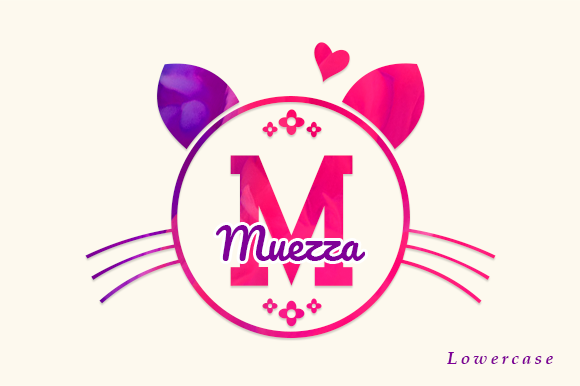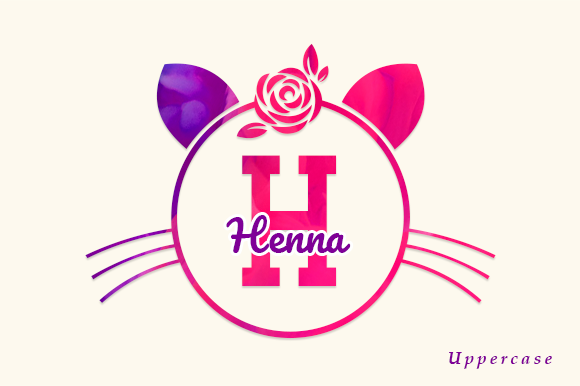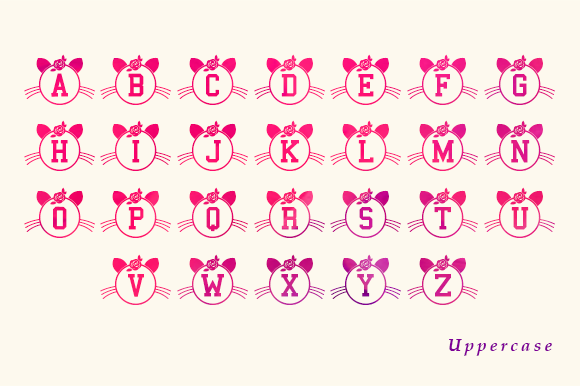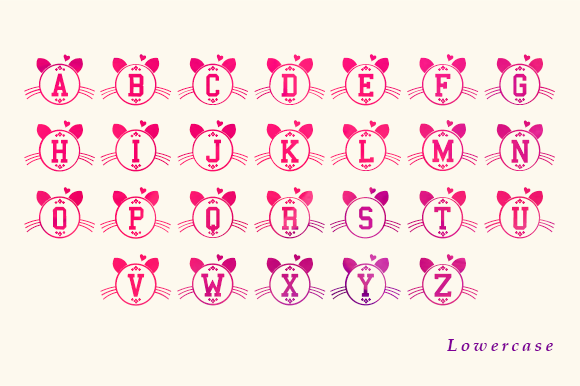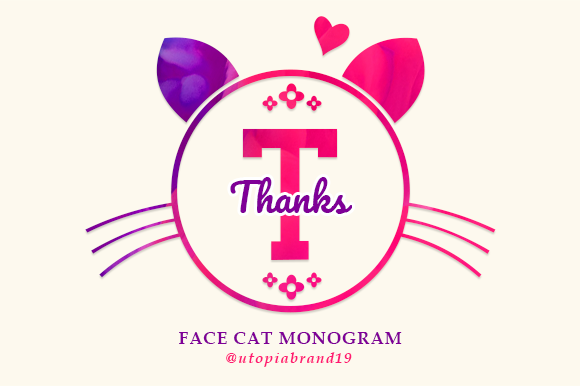
Introducing Face Cat Monogram Font: The Purrfect Addition to Your Design Collection
Are you a designer or crafter looking for a unique and elegant font to elevate your creative projects? Look no further than the Face Cat Monogram Font, a beautiful decorative font that features lovely cat-themed ornaments. With its authentic feel and charming design, this font is sure to capture the hearts of designers and crafters alike.
What is Face Cat Monogram Font?
Face Cat Monogram Font is a decorative font that boasts an elegant and sophisticated design, complete with adorable cat-themed ornaments. This font is perfect for creating stunning stationary art, eye-catching social media posts, and cute greeting cards that are sure to delight your audience. Whether you’re a professional designer or a crafty hobbyist, this font is sure to become a favorite in your collection.
Key Features of Face Cat Monogram Font
- Elegant Design: Face Cat Monogram Font features a beautiful, elegant design that is sure to add a touch of sophistication to your creative projects.
- Cat-Themed Ornaments: The font includes a range of adorable cat-themed ornaments, including cute cat faces, paws, and other feline-inspired designs.
- Authentic Feel: The font has an authentic feel that is sure to transport your audience to a world of whimsy and wonder.
- Versatile: Face Cat Monogram Font is perfect for a wide range of creative projects, from stationary art to social media posts and greeting cards.
Uses for Face Cat Monogram Font
Face Cat Monogram Font is a versatile font that can be used for a wide range of creative projects, including:
- Stationary Art: Create beautiful stationary art, including cards, invitations, and gift tags, using Face Cat Monogram Font.
- Social Media Posts: Add a touch of elegance and whimsy to your social media posts with this stunning font.
- Greeting Cards: Create cute and charming greeting cards for special occasions, such as birthdays, holidays, and more.
- Crafting Projects: Use Face Cat Monogram Font to add a personal touch to your crafting projects, including scrapbooking, journaling, and more.
Why Choose Face Cat Monogram Font?
With so many fonts available, why choose Face Cat Monogram Font? Here are just a few reasons why this font stands out from the crowd:
- Unique Design: Face Cat Monogram Font features a unique and adorable design that is sure to capture the hearts of designers and crafters alike.
- Elegant and Whimsical: The font strikes the perfect balance between elegance and whimsy, making it perfect for a wide range of creative projects.
Tips for Using Face Cat Monogram Font
Here are a few tips for using Face Cat Monogram Font in your creative projects:
- Experiment with Different Sizes: Try using Face Cat Monogram Font in different sizes to add visual interest to your creative projects.
- Pair with Other Fonts: Pair Face Cat Monogram Font with other fonts to create a unique and eye-catching design.
- Use in Combination with Images: Use Face Cat Monogram Font in combination with images to create stunning visual effects.
Face Cat Monogram Font is a beautiful and elegant decorative font that is sure to become a favorite in your design collection. With its adorable cat-themed ornaments and authentic feel, this font is perfect for creating stunning stationary art, eye-catching social media posts, and cute greeting cards. Whether you’re a professional designer or a crafty hobbyist, Face Cat Monogram Font is a must-have font that is sure to inspire your creativity.